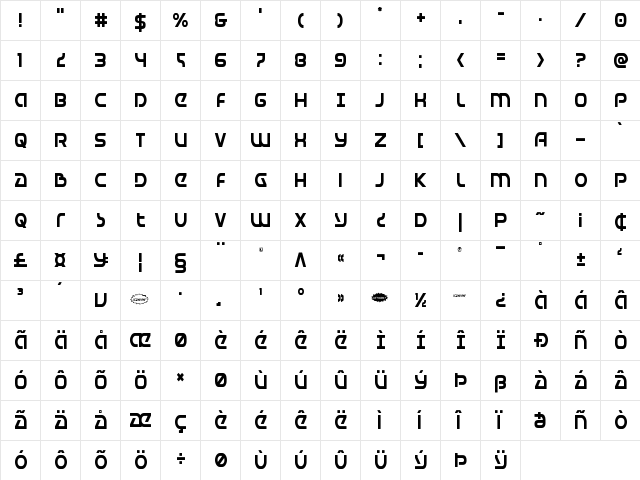
Universal Jack Condensed Condensed
Design Context for Universal Jack Condensed Typeface
Universal Jack Condensed offers clean, dependable letterforms without strong stylistic allegiance, making it a practical choice for designers who need flexibility. Its narrow stance lets it pack a punch even in space-constrained designs.
Pro Tip: Use Universal Jack Condensed in both headline and body roles to test its range before committing to a single application.